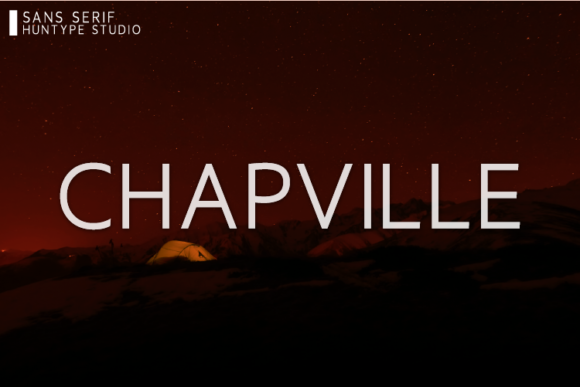
Dive into the world of Chapville, a modern and clean sans serif font that captivates with its versatility and timeless elegance. Crafted by the skilled hands at Huntype, Chapville is not just a font, it's an artistic journey waiting to be embarked upon. Its smooth, flowing lines and subtle contrast create a visual symphony that dances across your screens, leaving a trail of sophistication and allure.
With Chapville as your creative companion, you'll be able to weave tales of elegance and charm into your designs. Its inherent versatility makes it an ideal choice for logos that exude professionalism and leave a lasting impression. Whether you're crafting the identity of a sleek fashion brand or a dynamic tech startup, Chapville will elevate your designs to new heights of visual appeal.
But Chapville's magic extends far beyond the realm of logos. It shines brightly in the world of branding, where it effortlessly captures the essence of your brand, infusing it with a touch of modernity and sophistication. Imagine your brand name rendered in Chapville, standing tall and proud, inviting customers to explore the world you've created.
Unleash your imagination and let Chapville guide you through the digital landscape. Its clean lines and balanced structure make it the perfect choice for web headings that command attention without overpowering your content. Let your words flow smoothly and elegantly, drawing readers into your captivating narratives.